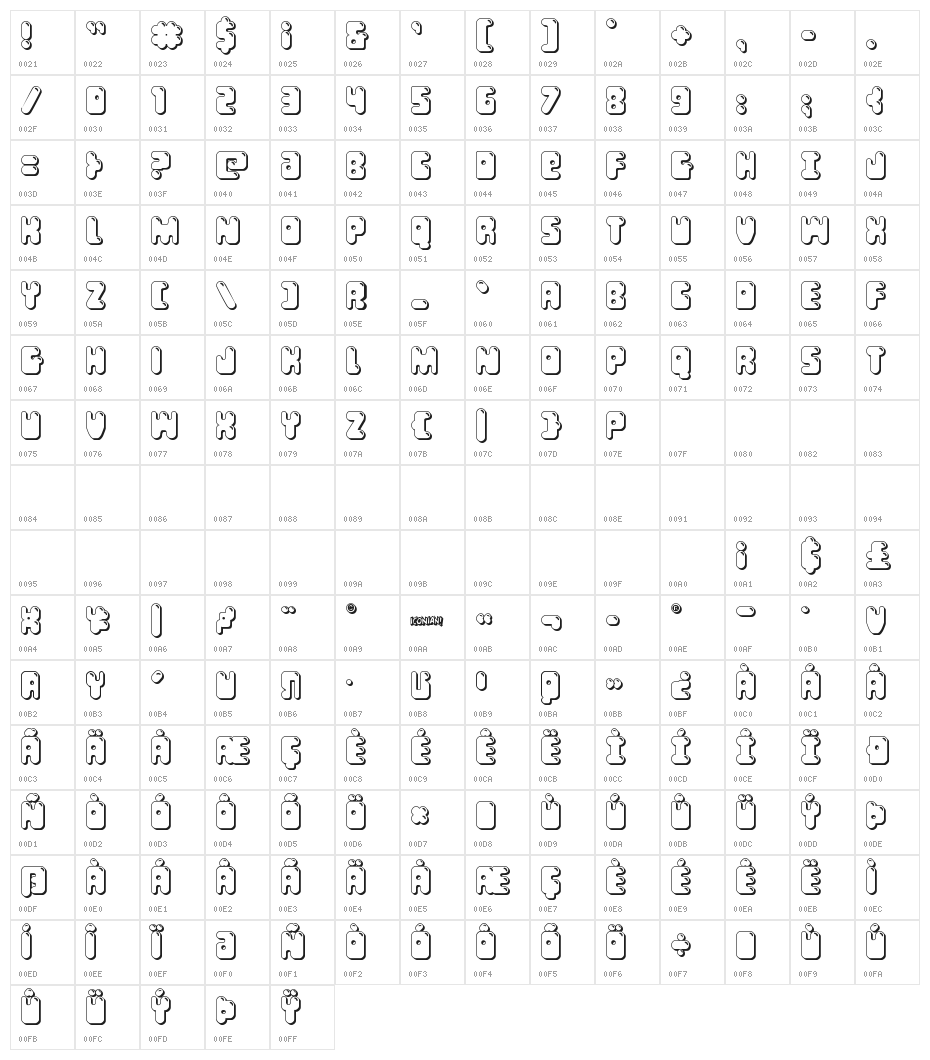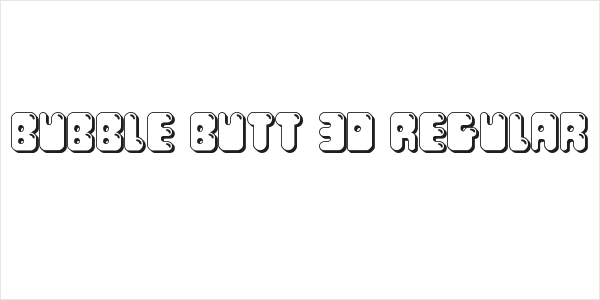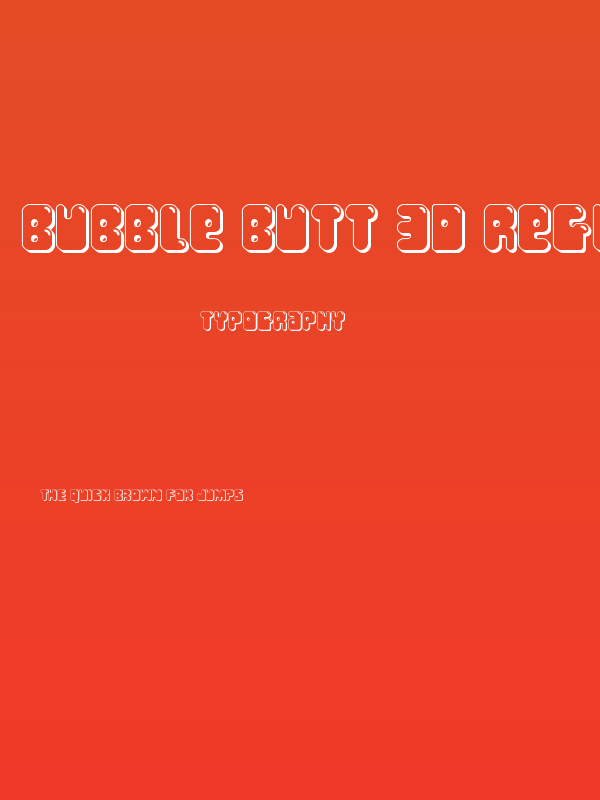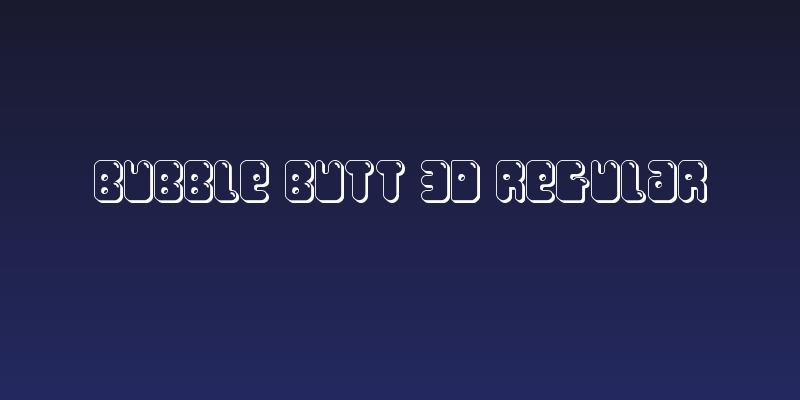
Bubble Butt 3D Regular Font
Bubble Butt 3D Regular Description
This playful and bold font features a three-dimensional bubble-like appearance, characterized by its rounded edges and thick, uniform strokes. The letters are designed with a shadow effect, giving them a distinct pop-out look that adds depth and dimension. The style is consistent across uppercase, lowercase, numbers, and special characters, maintaining a cohesive and eye-catching aesthetic. Its unique design makes it stand out, perfect for projects that require a fun and engaging visual element.
Overall StylePlayful, Modern
Proposed ProjectsIdeal for children's book covers, playful branding, toy packaging, and event posters.